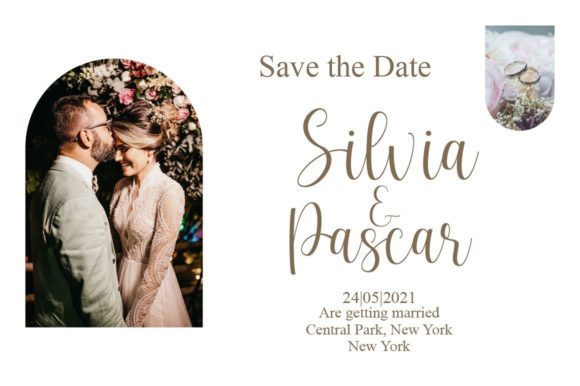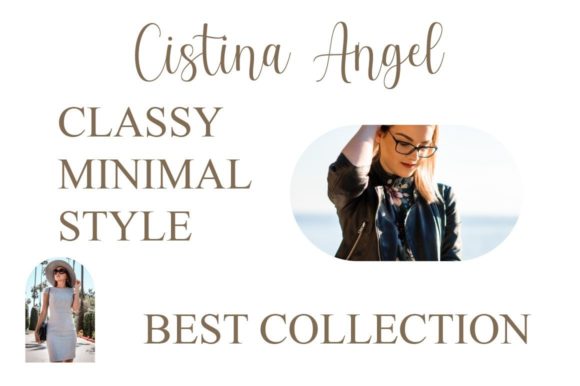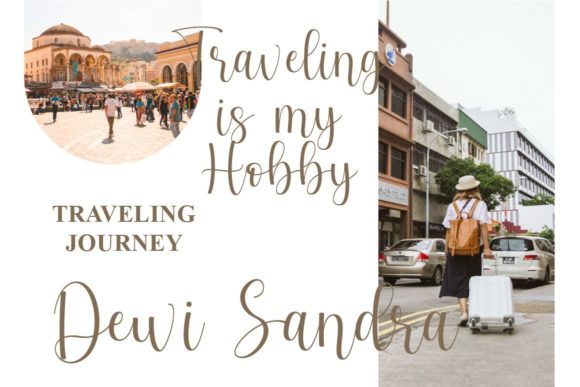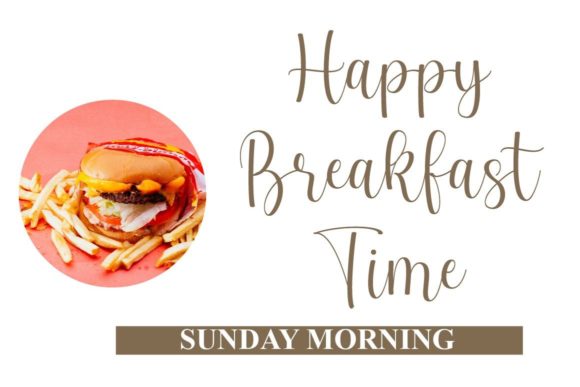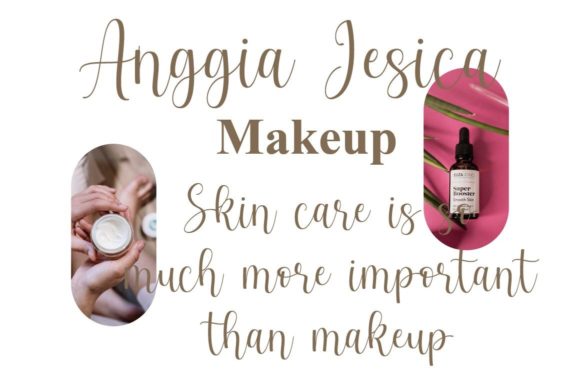
Introduction to Gulaly Font
Gulaly is a lovely and timeless handwritten font.
Key Features of Gulaly Font
Why Choose Gulaly Font?
Gulaly Font offers exceptional quality and versatility, making it a valuable addition to your design toolkit. Whether you’re creating for personal projects or commercial use, Gulaly Font delivers professional results.